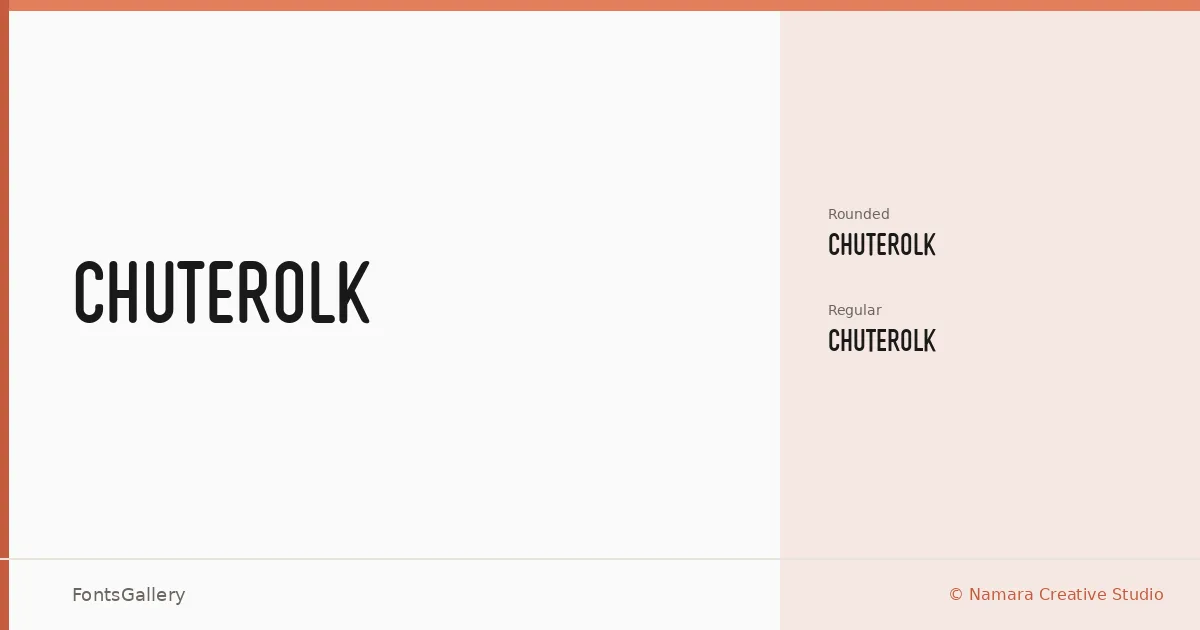
About CHUTEROLK Font
There is a studied confidence to these letterforms — the kind that comes from stripping a display face down to what actually matters. Toni Setiawan at Namara Creative Studio built this family around the idea that simplicity can carry significant impact, and the two cuts delivered here make that case cleanly. The family covers Latin and ships in TTF format.
This is a display family in two styles: a standard Regular and a softened Rounded variant that eases the same skeleton into friendlier territory. Both sit squarely in a modern, minimal register — bold enough to anchor a headline without noise, professional enough to hold its own in logo lockups and branding work. The Rounded cut is worth paying attention to if you need that same strong presence with a slightly warmer edge.
The weight and clarity here suit large-scale work — poster headlines, logo marks, T-shirt graphics, and brand identities where the type needs to read at a glance. For body copy or secondary text, the family pairs well with Helvetica or Aileron on the neutral side, and with Canela, Abrade, or ABC Arizona when you want more editorial contrast against the display setting.